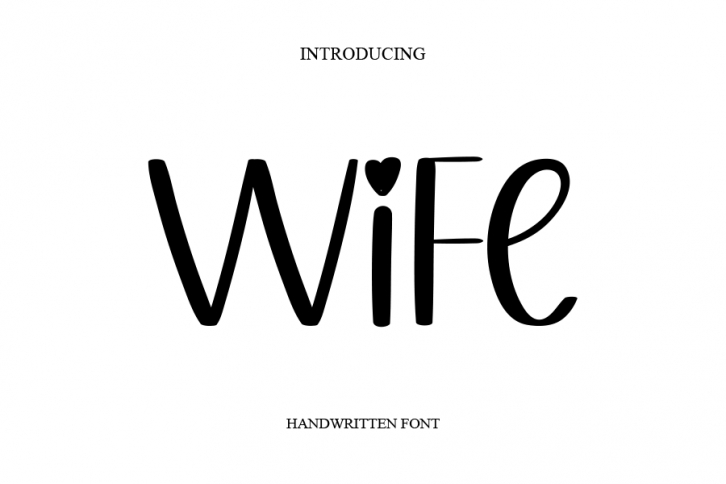
Wife is a wonderful, impactful handwritten script font that’s perfectly suited to wedding use. This sweet font comes complete with hearts to dot the i’s – perfect for a fun wedding celebration.